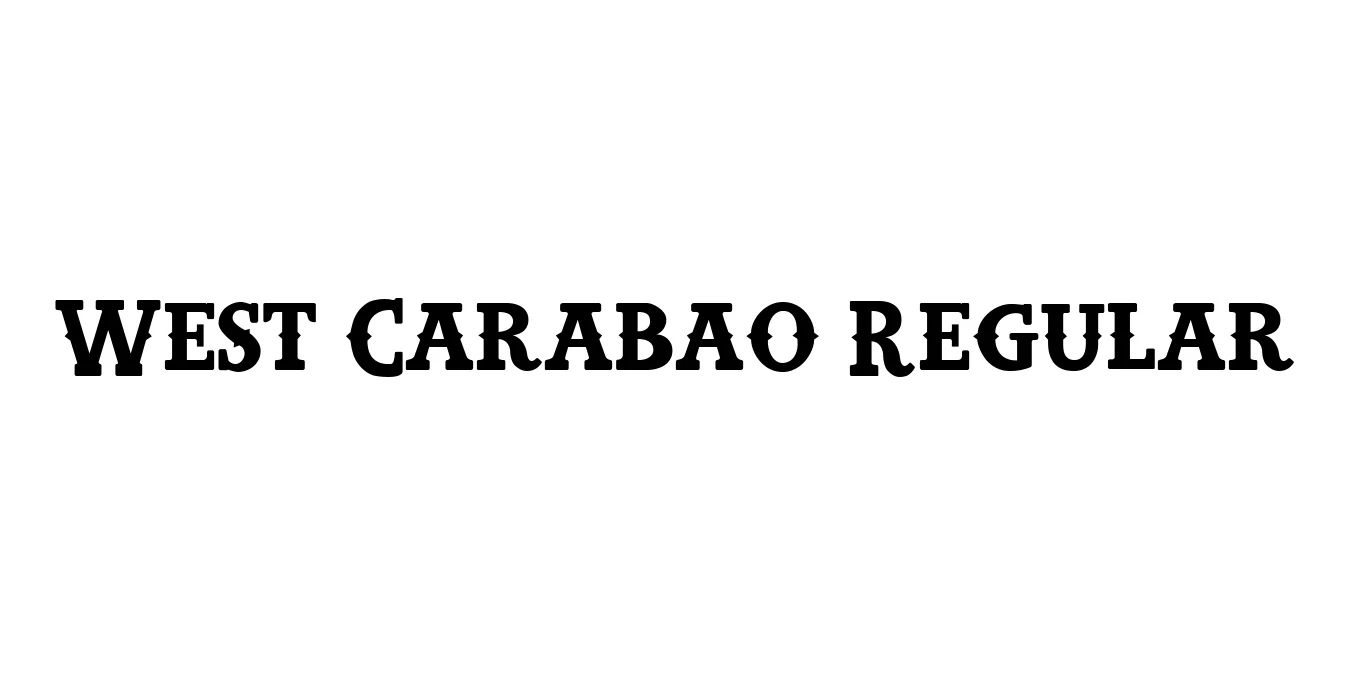
West Carabao Regular
| Category | Western Display Serif |
West Carabao Regular is a bold and distinctive display font that draws heavy inspiration from the classic visual language of the American Old West, blending it with modern stylistic elements. Developed by the creative studio Alit Design, this typeface features sharp, pronounced serifs and robust character shapes that evoke a sense of ruggedness, strength, and vintage charm. Its wide letterforms provide a commanding presence on the page, making it instantly recognizable in any graphic composition.
The font is particularly effective for branding projects that require a bold, masculine presence or an authentic retro atmosphere. With its high-contrast lines and unique flourishes, West Carabao Regular excels in large-scale applications such as signage, headlines, and logotypes. It is a preferred choice for outdoor lifestyle brands, craft breweries, and apparel companies looking to capture a timeless, adventurous aesthetic while maintaining high legibility.
West Carabao Regular Best Uses
Creating impactful brand identities with a vintage or frontier-style feel.
Designing bold graphics for t-shirts, denim labels, and outdoor gear.
Ideal for large format posters, shop fronts, and rustic wooden placards.
Perfect for artisanal product labels, craft beer bottles, and leather goods packaging.